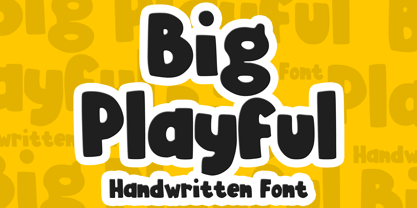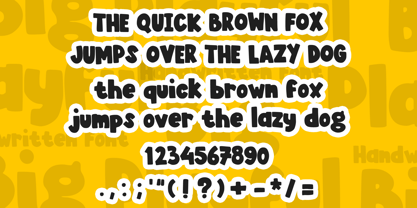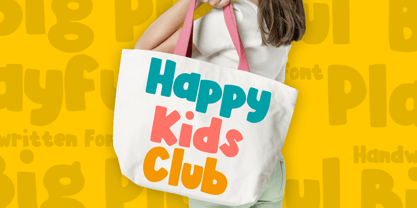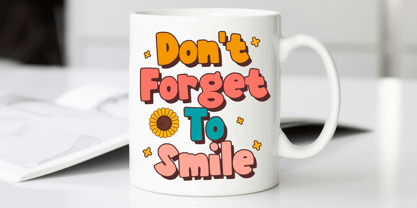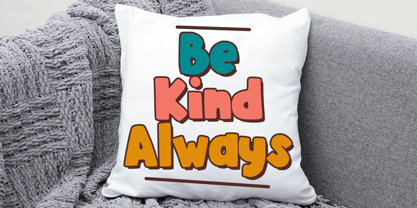
Big Playful
by Mvmet
The Big Playful Font Family was designed by Gabriel Valentinus and published by Mvmet. Big Playful contains 1 styles. More about this family
Big Playful is a vibrant and bold cartoon display font that brings a sense of fun to any project. Ideal for adding a joyful spark to clothing designs, children's books, party decorations, and greeting cards, this font serves as your gateway to a whimsical design experience. Whether you're creating stickers, posters, or banners, Big Playful unleashes endless possibilities. Let its cheerful vibes infuse your fabulous designs with delightful energy and charm!
Designers: Gabriel Valentinus
Foundry: Mvmet